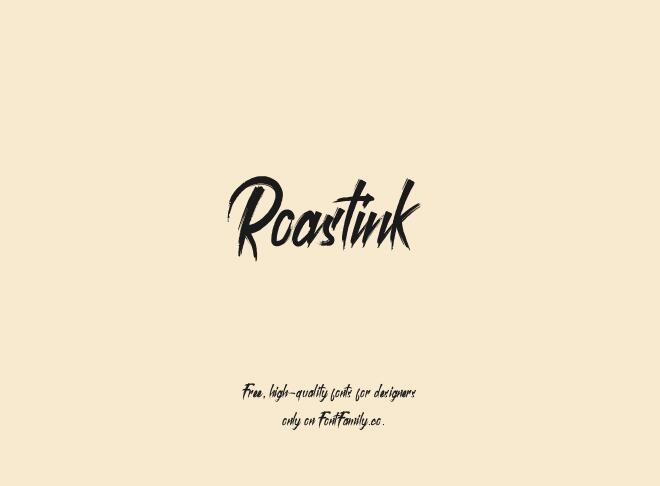
Roastink Font
Roastink Font is a unique, playful, and rustic script font that exudes a vintage vibe while maintaining a modern flair. This handwritten brush font, designed by Roastink Creative Studio, is perfect for adding a touch of retro charm to your designs. Its rustic feel makes it an excellent choice for branding, logos, and packaging design, especially in the food and beverage industry. Roastink Font stands out for its distinctive brush strokes that add an authentic handwritten touch. Its playful nature can add a fun, casual feel to any project, while its retro undertones offer a hint of nostalgia. This font is free for personal use, making it a great choice for designers looking to experiment with a unique script style.